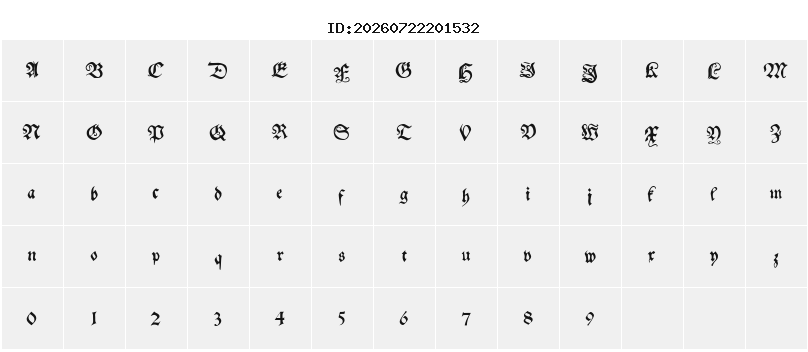
• Font Name: MyElectronicSchwabach
• Full Font Name: MyElectronicSchwabach
• Version: 1.0 2004-12-13
• Copyright: Copyright (c) Manfred Klein inspired by Schoensperger
• Description: frei nach Schoensperger - s.a. Font dieses Namens @ Fontshop since ~1992. This Version ist automatically redrawed with Altsys Fontographer software ... 12.2004
About MyElectronicSchwabach.ttf